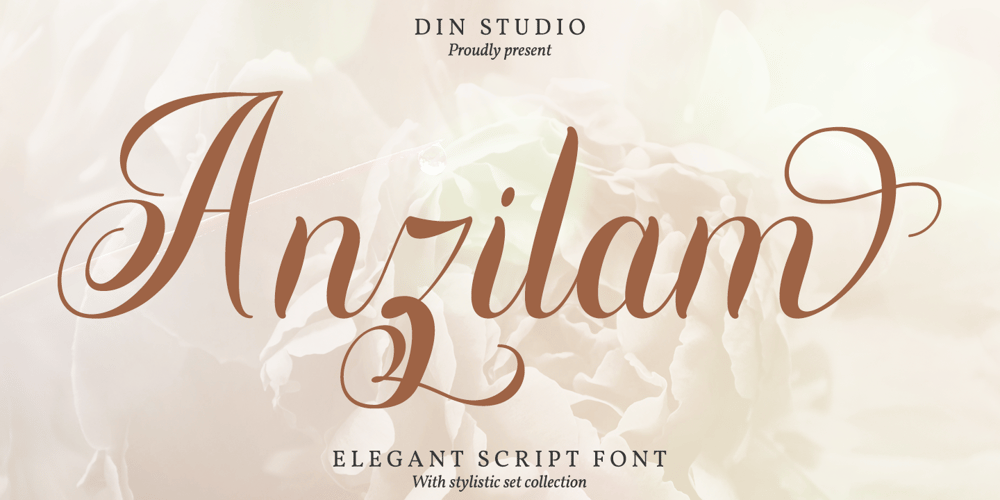
Anzilam Font Family was designed by Donis Miftahudin and published by Din Studio. Anzilam contains 1 styles and family package options. Anzilam is a modern calligraphy font. It brings a beautiful and attractive typeface. Made for any professional project branding. It is the best for logos, branding, wedding and quotes.Features: Stylistic Set Beautiful Ligatures Multilingual Support PUA Encoded Numerals and Punctuation Thank you for downloading premium fonts from Din Studio